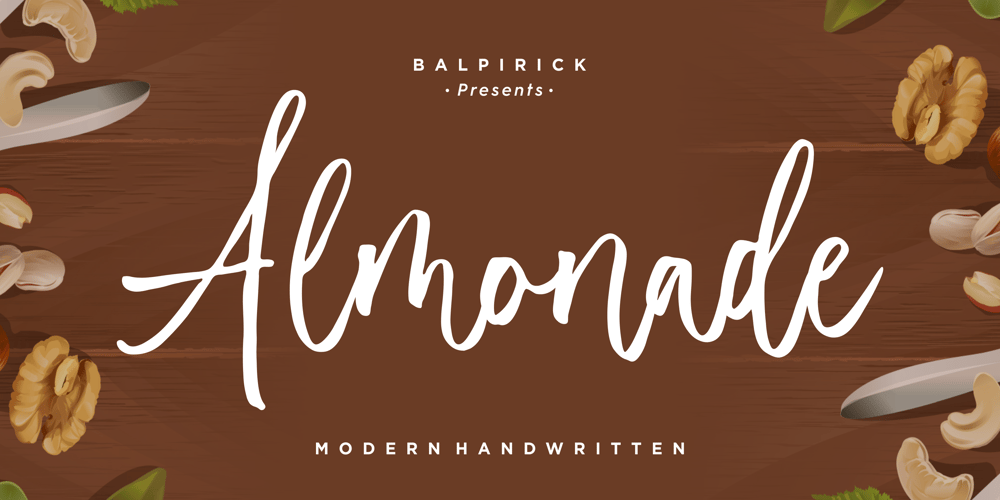
Almonade Font Family was designed by Restu Angga and published by Balpirick. Almonade contains 1 styles and family package options. Almonade is a cute and casual handwritten font with an incredibly friendly feel. Whether you’re looking for fonts for Instagram or calligraphy scripts for DIY projects, this font will turn any creative idea into a true piece of art!